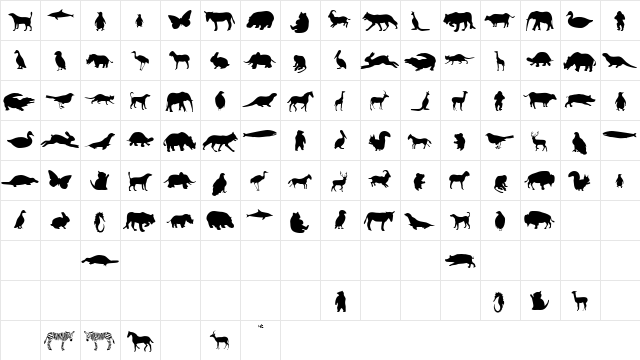
Animals Normal
Design Context for Animals Typeface
Animals is a composed and adaptable typeface that performs quietly and consistently across a wide range of design contexts.